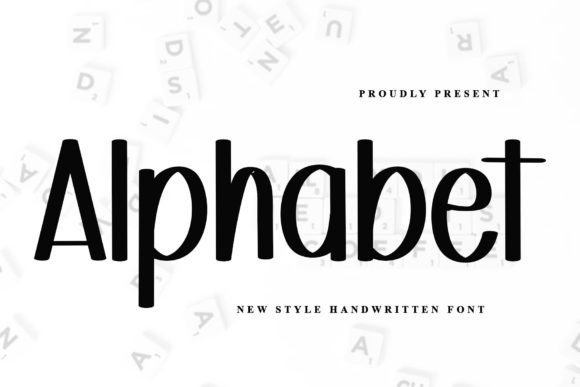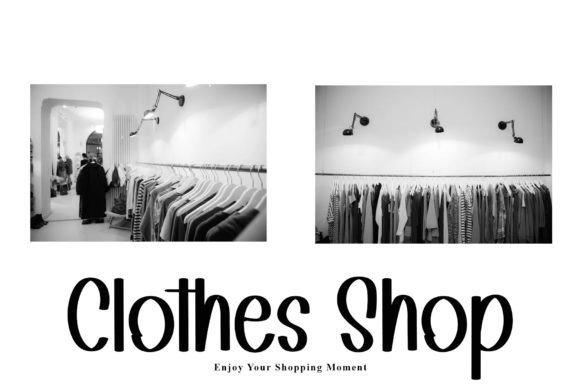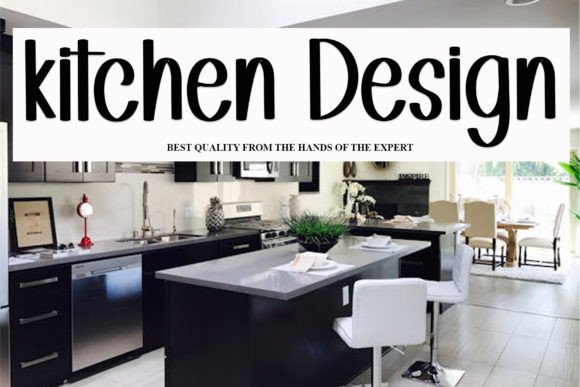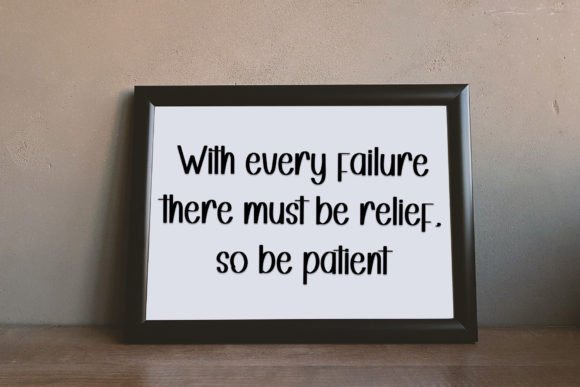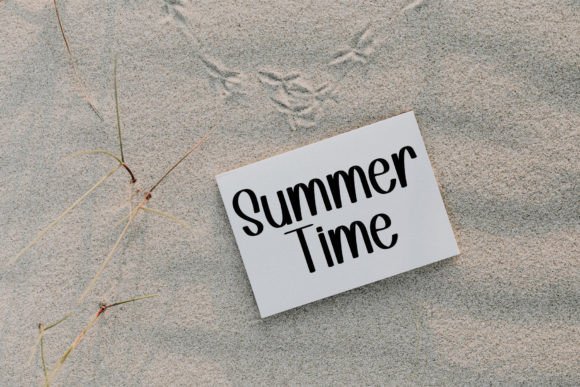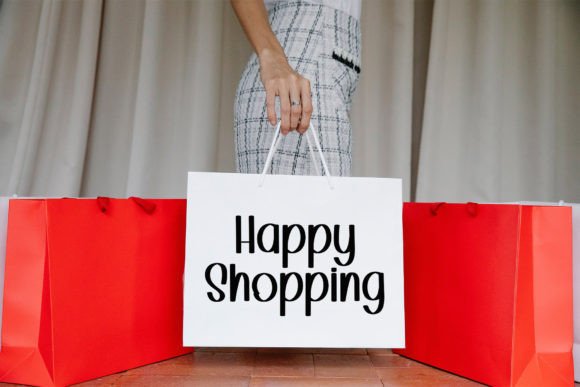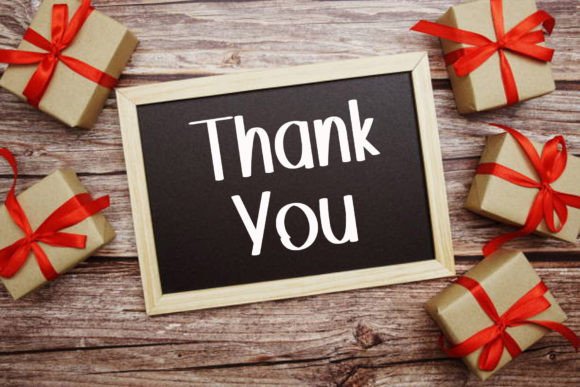
Unleashing Your Creativity with the Alphabet Font
Do you remember the feeling of scribbling down your favorite quote or lyrics in your journal, watching your handwriting transform into a beautiful piece of art? That’s the magic of the Alphabet Font, a handwritten font that combines elegance with a touch of whimsy.
Designed to inspire creativity, the Alphabet Font is perfect for Instagram posts, DIY projects, and any other idea that needs a personal touch. Whether you’re a seasoned designer or a creative enthusiast, this font is a valuable addition to your toolkit. With its versatility and charm, the Alphabet Font is sure to elevate your designs and make them truly unique.
Key Features of Alphabet Font
- Unique Character Set: Alphabet Font features a unique character set that includes a wide range of symbols, icons, and glyphs, making it ideal for creative projects and designs.
Alphabet Font Review
As a designer, I’ve had the chance to work with Alphabet Font, and I must say it’s an interesting choice. Here’s my honest review:
- The unique and playful design of Alphabet Font is sure to grab attention. It’s perfect for creating a fun and youthful vibe in your branding or marketing materials.
- The font is highly legible, even at small sizes, making it a great choice for body text or headings.
- The font is also highly customizable, with a range of weights and styles to choose from.
- The font may not be suitable for formal or professional applications, as it can come across as too playful or childish.
- The font’s unique design can also make it difficult to read at very small sizes or in certain contexts, such as on mobile devices.
Overall, I think Alphabet Font is a great choice for designers who want to add a touch of whimsy and personality to their work. While it may have some limitations, the font’s unique design and high customizability make it a great option for the right project.
Alphabet Font is commonly used in:
1. Educational materials, such as alphabet books and worksheets.
2. Children’s party invitations and decorations.
3. Graphic design projects that require a playful and creative touch.